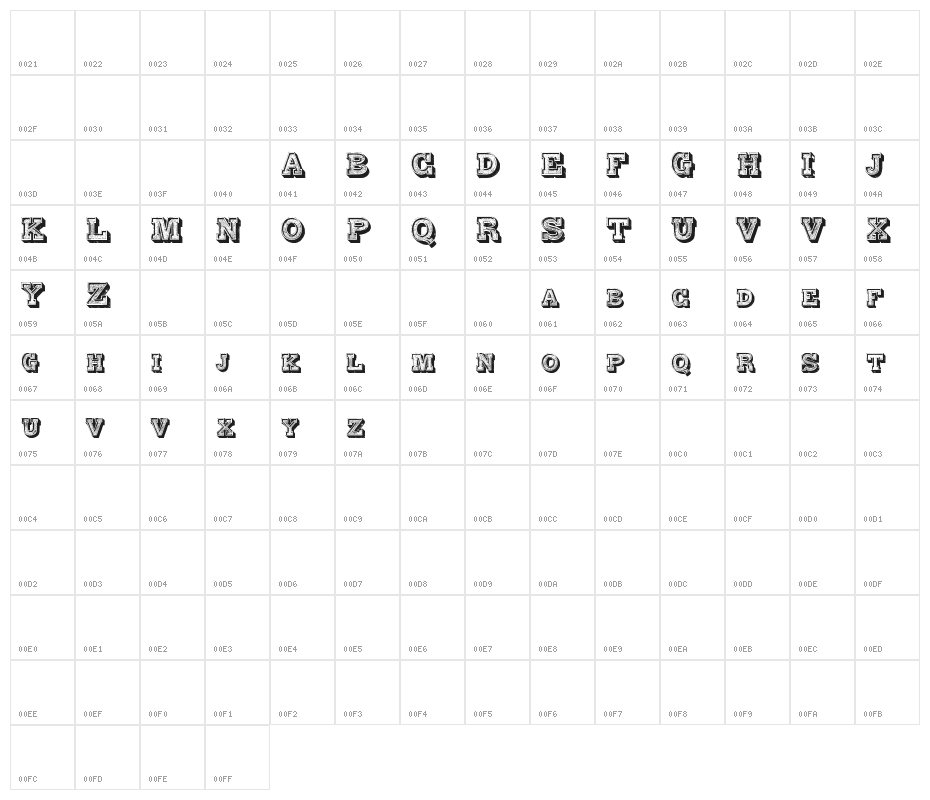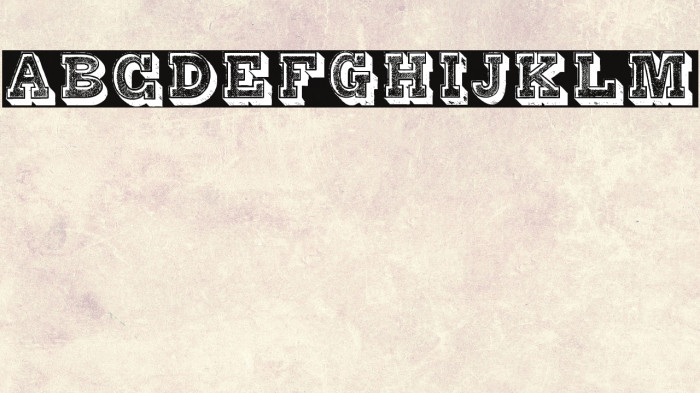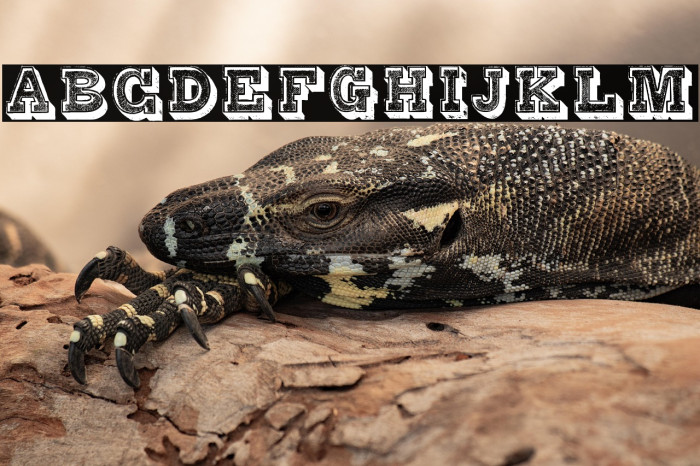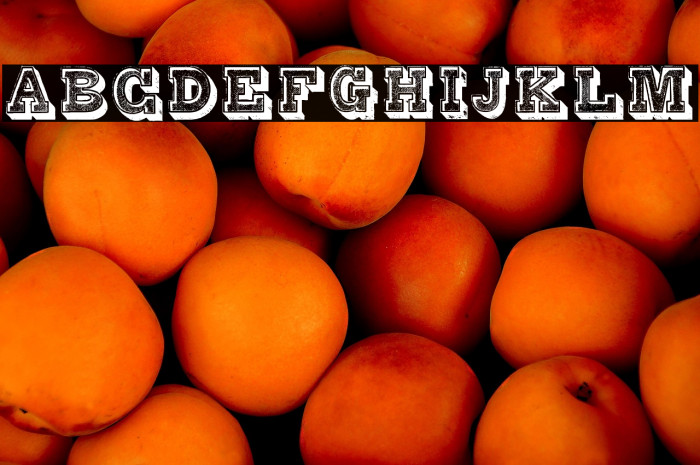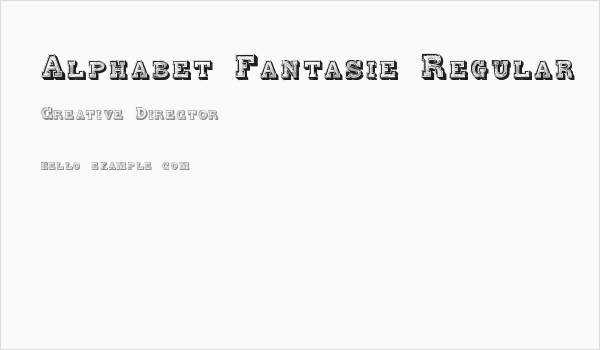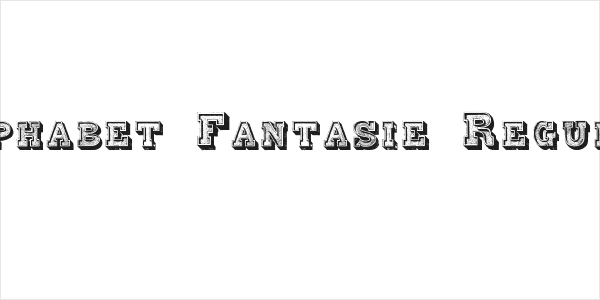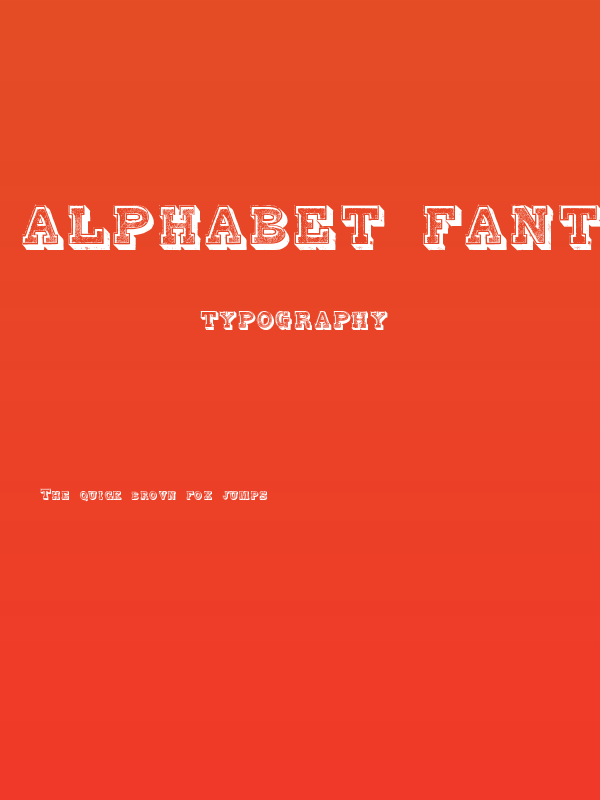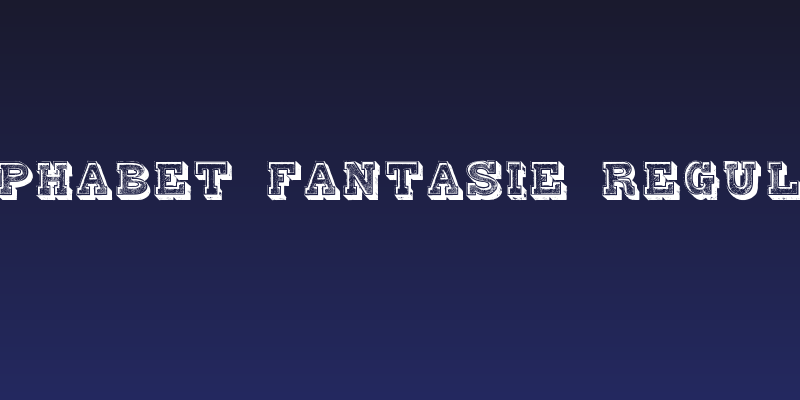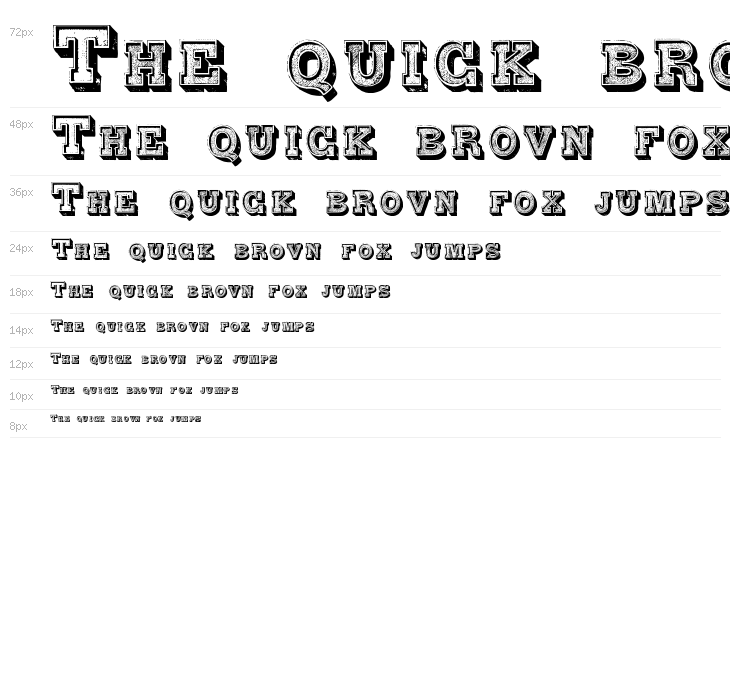
Alphabet Fantasie Regular Font
Alphabet Fantasie Regular Description
This font features a bold, decorative style with intricate detailing within each character. The letters are outlined with a shadow effect, giving them a three-dimensional appearance. The design incorporates a vintage aesthetic, reminiscent of old circus or carnival posters. The uppercase letters are uniform in height, with consistent spacing that enhances readability despite the ornate design. The font's unique characteristics make it stand out, with each letter having a textured fill that adds depth and visual interest.
| Proposed Projects | Ideal for vintage-themed posters, circus or carnival event flyers, and decorative signage. |